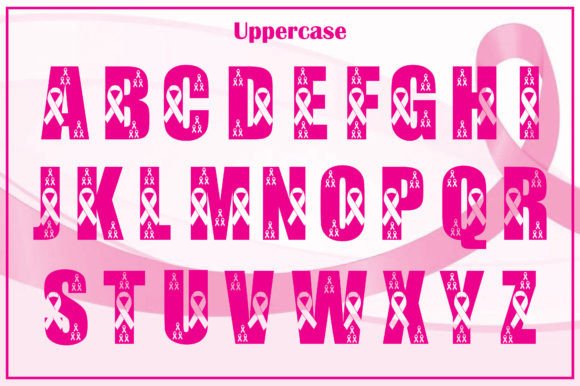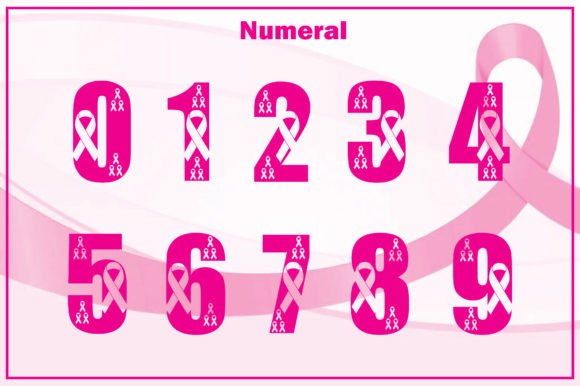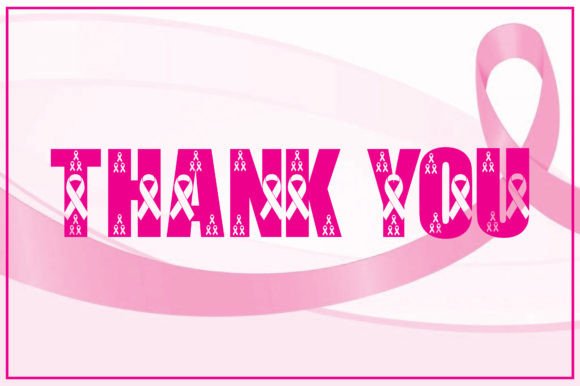
Cancer Font: The Ultimate Display Font for Creative Projects
Cancer Font is a game-changing display font that has been making waves in the design community. With its thick lettering and incredibly unique style, it’s the perfect addition to any creative project. Whether you’re a designer, crafter, or DIY enthusiast, Cancer Font is sure to brighten up your ideas and take them to the next level.
What makes Cancer Font so special?
Cancer Font is not your average font. Its bold, thick lettering makes it stand out from the crowd, and its unique style ensures that it will add a touch of personality to any project. The font is incredibly versatile, making it suitable for a wide range of applications, from crafting and DIY projects to professional design work.
Key Features of Cancer Font
- Thick Lettering: Cancer Font features bold, thick lettering that makes it perfect for headlines, titles, and other display text.
- Unique Style: The font’s unique style sets it apart from more traditional fonts, adding a touch of personality to any project.
- Versatility: Cancer Font is incredibly versatile, making it suitable for a wide range of applications, from crafting and DIY projects to professional design work.
Uses for Cancer Font
Cancer Font is perfect for a wide range of creative projects, including:
- Crafting and DIY Projects: Add a personal touch to your crafting and DIY projects with Cancer Font. Use it to create custom titles, labels, and signs that will make your projects stand out.
- Graphic Design: Cancer Font is perfect for graphic design projects, including brochures, flyers, and posters. Its bold, thick lettering makes it easy to read, even at a distance.
- Sign Making: Create eye-catching signs with Cancer Font. Its unique style and bold lettering make it perfect for signs that need to grab attention.
- Paper Crafting: Add a touch of personality to your paper crafting projects with Cancer Font. Use it to create custom titles, labels, and embellishments.
Tips for Using Cancer Font
Here are a few tips for getting the most out of Cancer Font:
- Use it sparingly: Cancer Font is bold and attention-grabbing, so use it sparingly to avoid overwhelming your project.
- Pair it with complementary fonts: Pair Cancer Font with complementary fonts to create visual interest and add depth to your project.
- Experiment with colors: Cancer Font looks great in a variety of colors, so don’t be afraid to experiment and find the perfect color for your project.
Cancer Font is a game-changing display font that is sure to brighten up your creative projects. With its thick lettering and incredibly unique style, it’s the perfect addition to any design, crafting, or DIY project. Whether you’re a professional designer or a DIY enthusiast, Cancer Font is a must-have font that will take your projects to the next level.